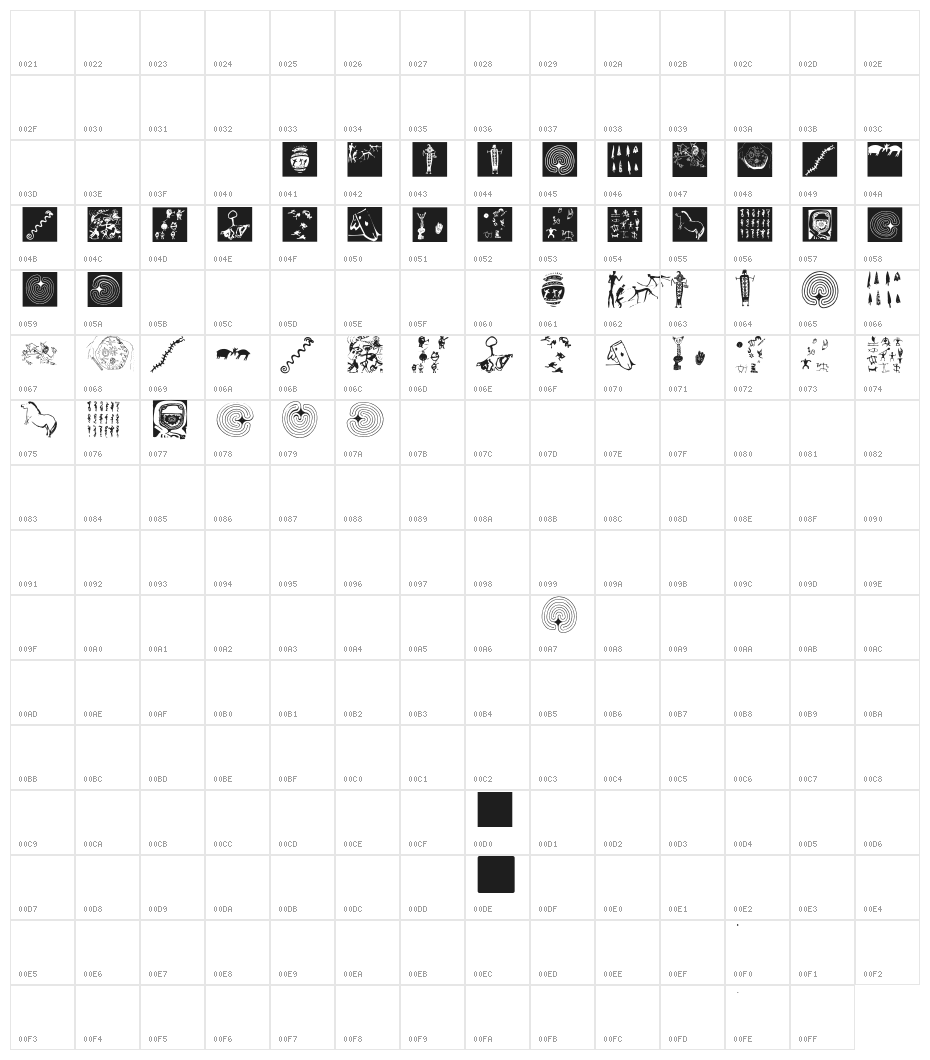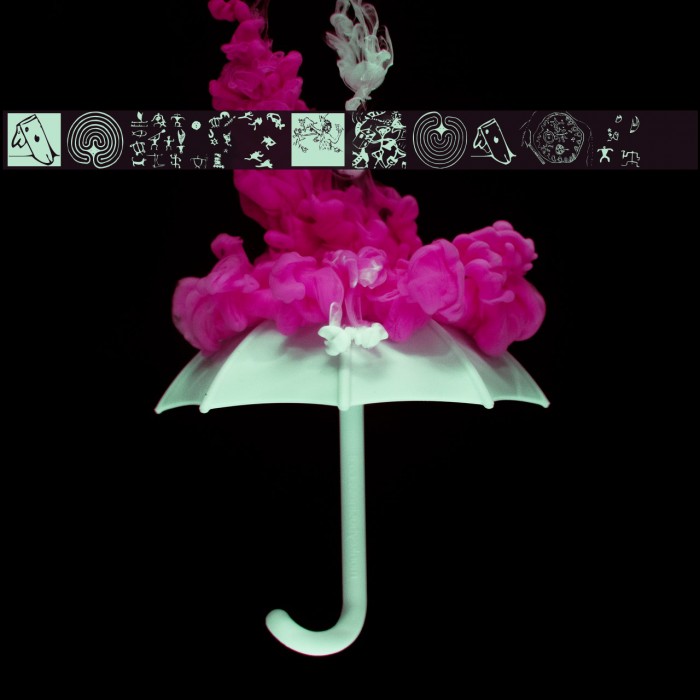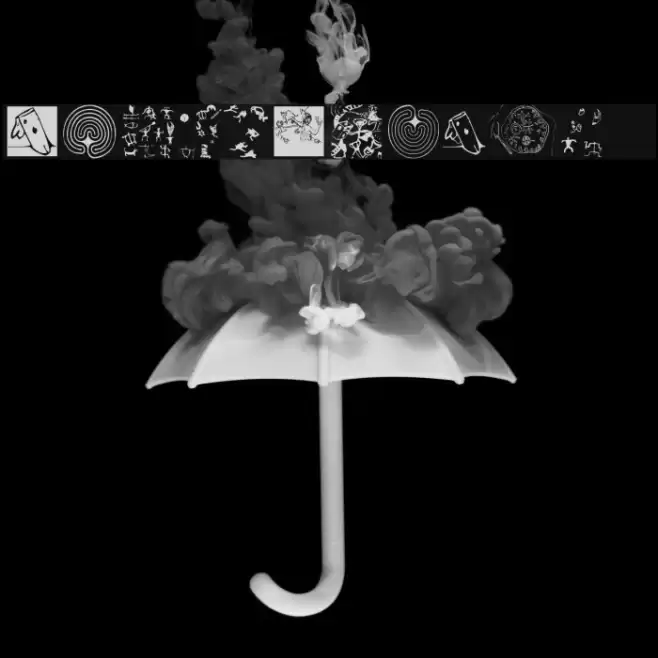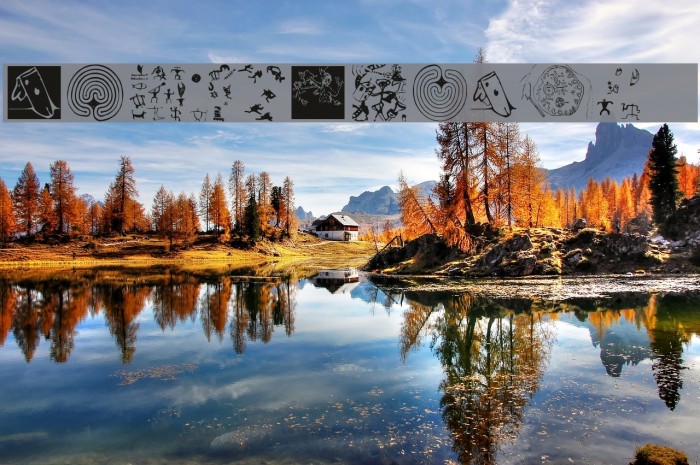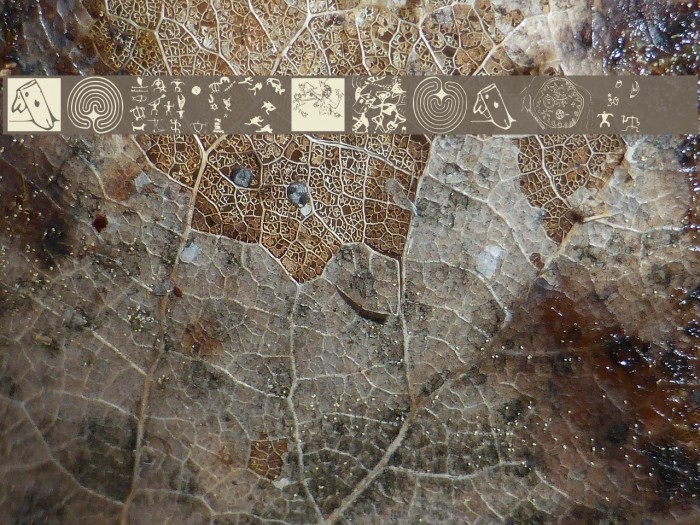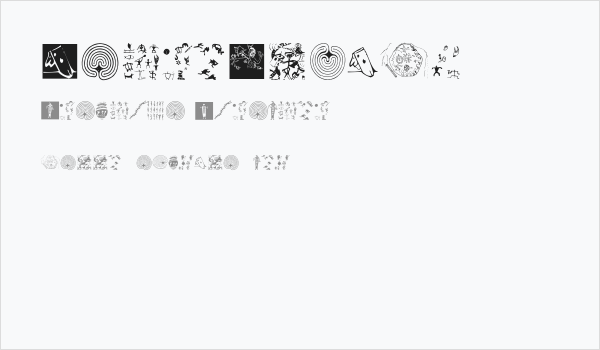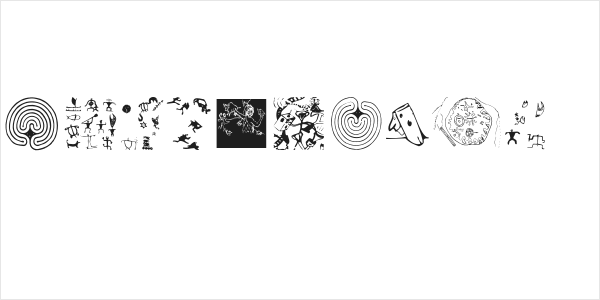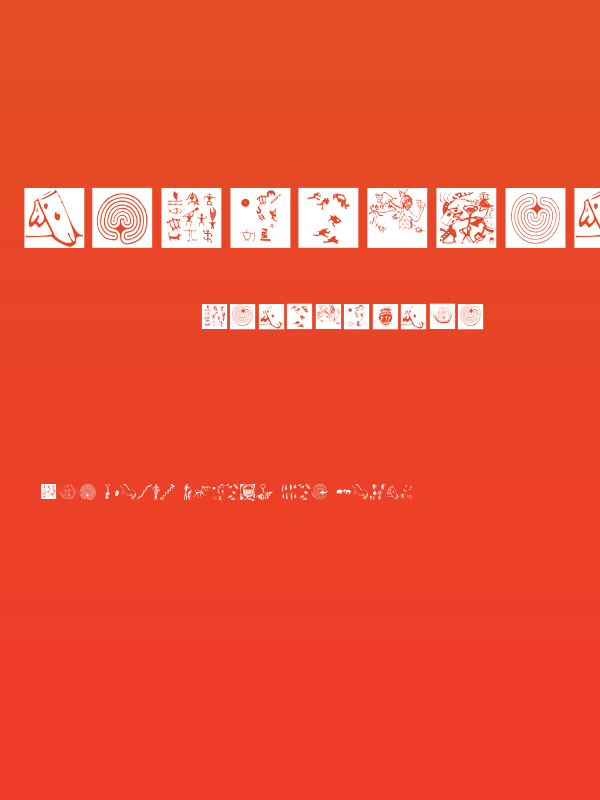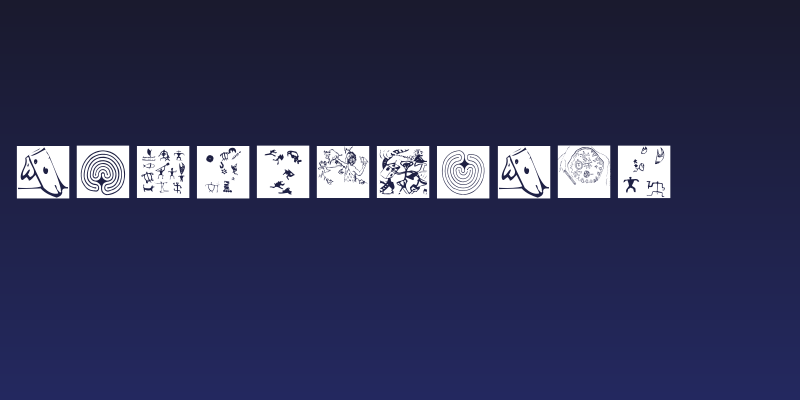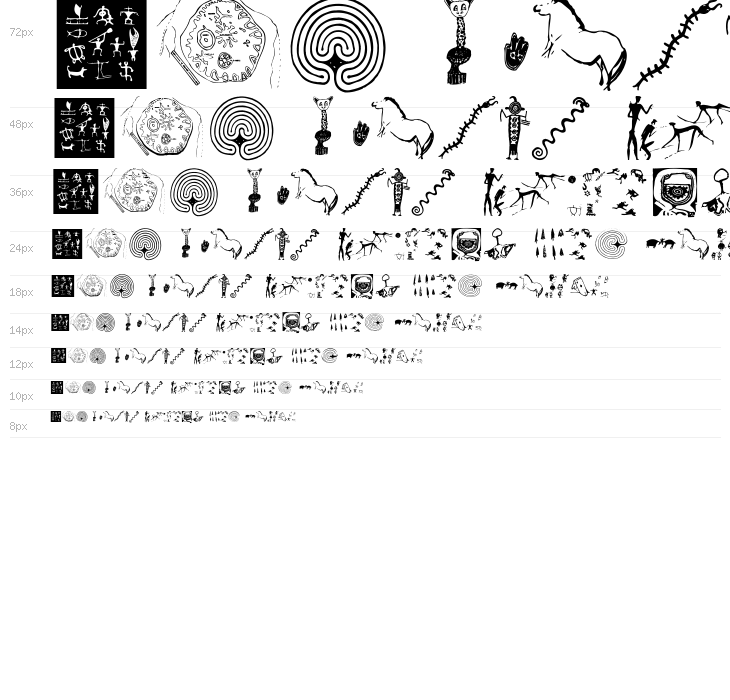
PetroGlyphs07 Font
A decorative font composed of glyphs inspired by ancient petroglyphs and pictographs, featuring stylized human figures, animals, geometric shapes, and symbolic motifs. The characters are highly illustrative, with varying line thickness and intricate details, evoking a hand-drawn, historical aesthetic.
Overall StyleDecorative, Historical, Hand-drawn
Use CaseLogos, Posters, Themed Headlines, Educational Graphics
Proposed ProjectsEducational materials, history-themed posters, museum displays, archaeological publications, themed event graphics, and creative art projects.